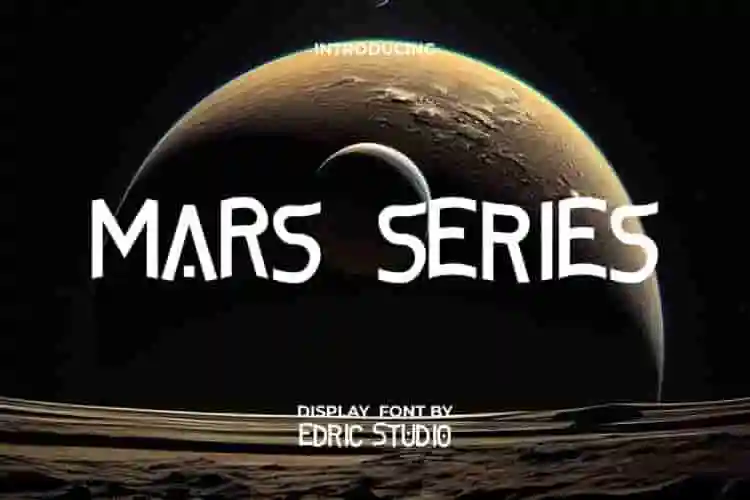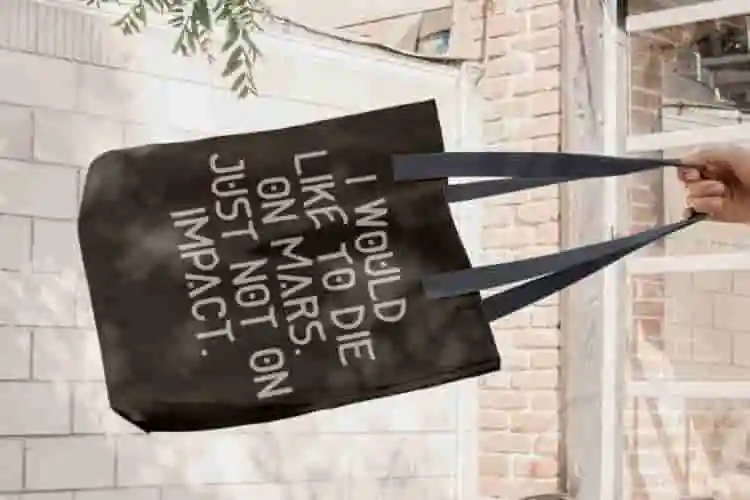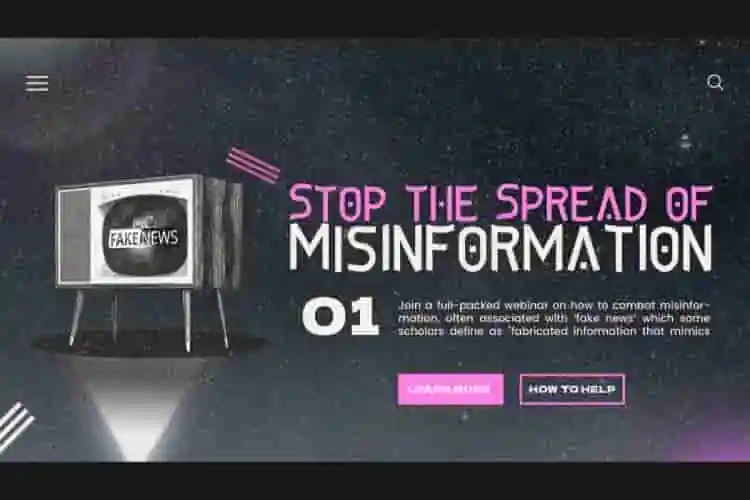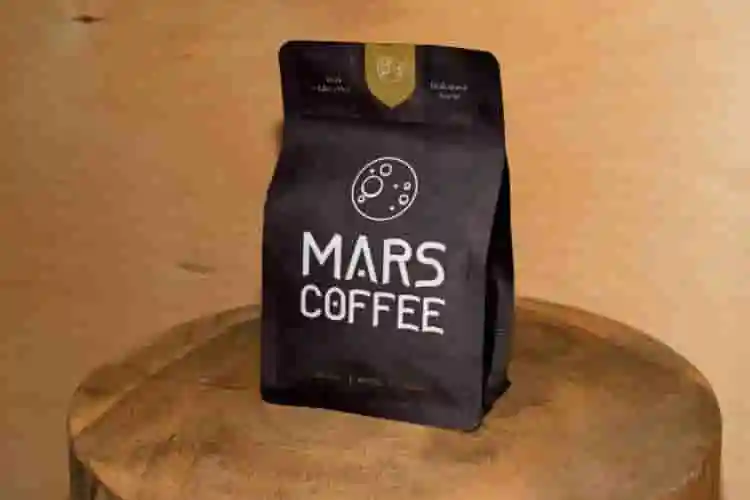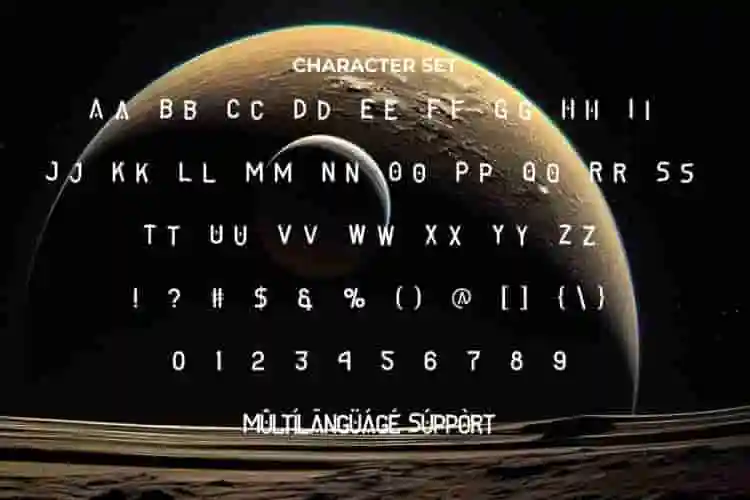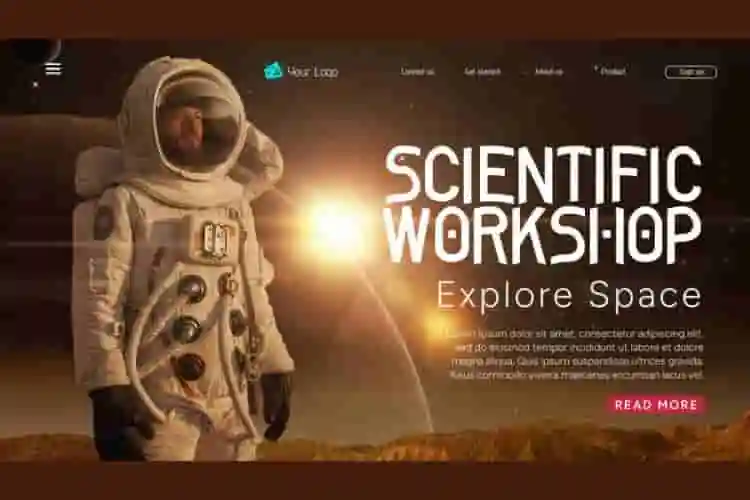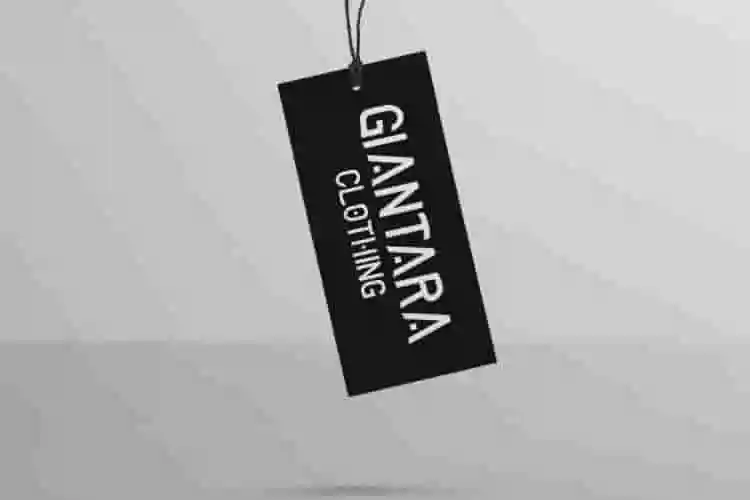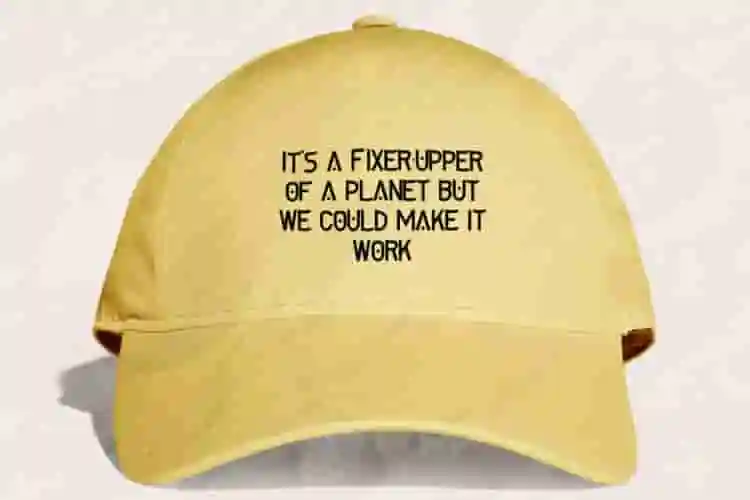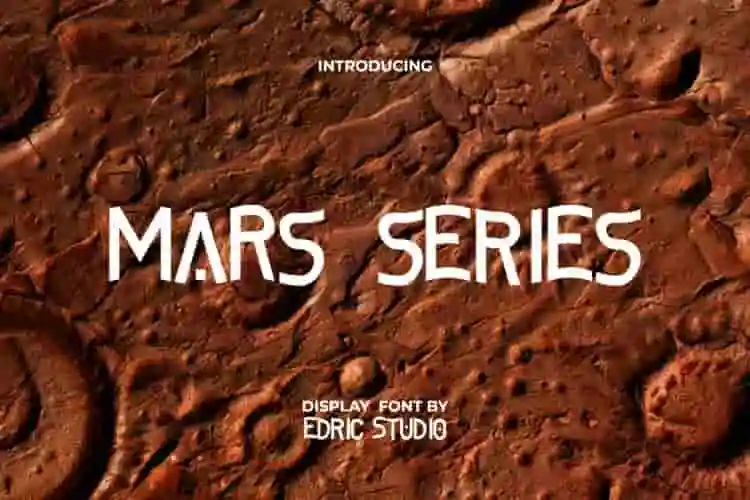
Mars Series Font is a creative outer space display font with special appearance and touch of vintage gaming. It is a bit retro but still made modern, each letterform is made special to be a favorite and make your design stand out. It will be perfect for branding logo, heading, packaging designs, screen printed designs, tags, titles, websites, or any other design projects.
Mars Series Font has a complete set of fonts with ALL CAPITAL LETTERS for both Upper and Lower Case, Numbers, Punctuation and Symbols. This retro futuristic typeface will be perfect for accessories or merchandise, cafes, clothing brand, event organizer, fashion, graphic design, printing, publishing, sci-fi movie, sportswear, or anything else.
Launch your design into a new dimension with Mars Series Display Font — a futuristic, high-impact display font crafted for bold headlines, digital branding, and cutting-edge visuals. Inspired by space exploration, tech interfaces, and sci-fi aesthetics, this font brings sleek geometry and commanding presence to every project.
Whether you’re designing for a gaming brand, tech startup, esports team, or futuristic poster, Mars Series Display Font delivers the strength and style you need. Its sharp lines, modern letterforms, and space-age energy make it the perfect display font for bold titles, logos, and promotional graphics.
Built for forward-thinkers, Mars Series is a versatile typeface that thrives in digital and print environments. Use it for album covers, YouTube thumbnails, mobile UI design, or anything that needs to display a strong, modern identity.
Mars Series Font also supports multilingual characters which are ready to use either on Windows or Mac machines with a simple installation. Combine different characters for a bespoke, handcrafted feel. It’s tested to work well in the Adobe Apps (Illustrator, Adobe InDesign, Adobe Photoshop) even work on Microsoft Word. All of these characters are available through the glyph panel, moreover each letter has its own unicode (PUA) so you can access all the characters easily.